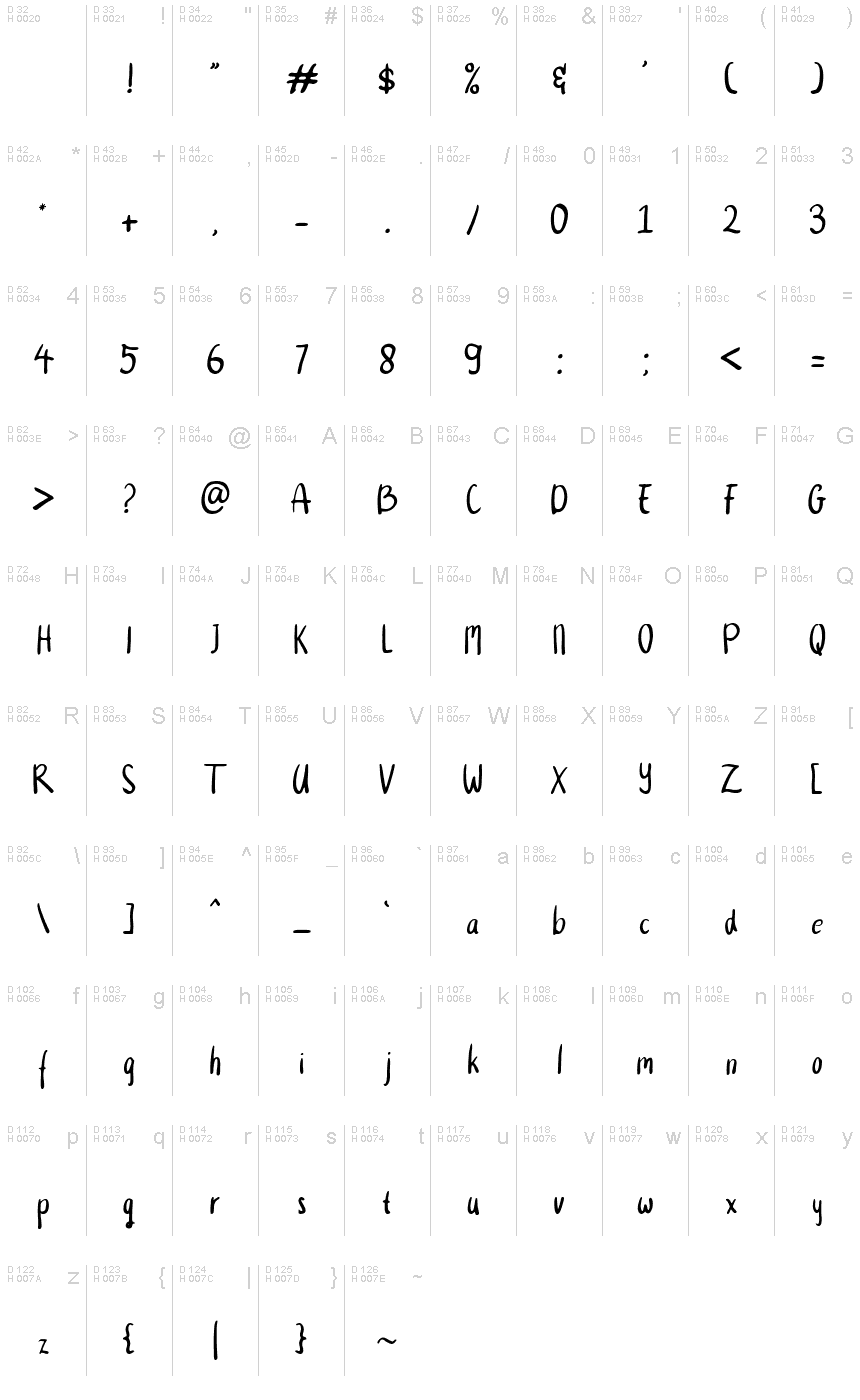
Thumbasono Regular
Thumbasono, the charming semi-light handwritten font by Kurniawan is perfect for adding a playful touch to your designs. Its semi-condensed width makes it versatile and suitable for a range of projects, from invitations to branding and packaging. Use Thumbasono to add personality and warmth to your designs, whether you're creating a logo for a whimsical boutique or designing a fun social media graphic. With its unique character and easy-to-read style, Thumbasono will make your projects stand out in the best way possible.